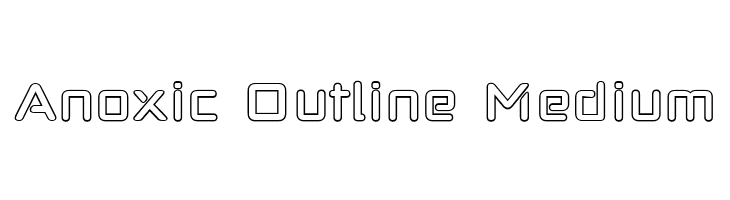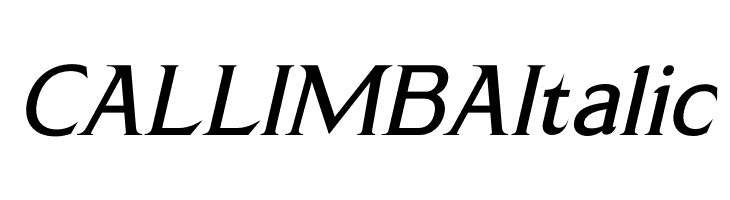
A modern, geometric outline font with a tech-inspired aesthetic.
An elegant, high-contrast italic font with a refined and stylish appearance.
An elegant, medium-weight italic serif font with classic styling.